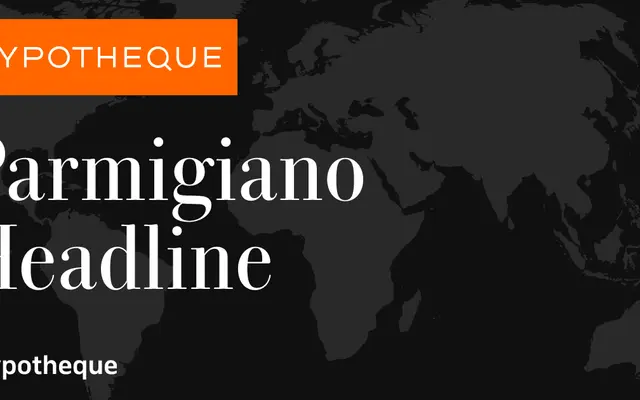
Parmigiano Headline
A didone serif system from Typotheque with four optical-size cuts, the Headline variant tuned for large-scale display settings with sharp stroke contrast.
Part of the Parmigiano system, this Headline cut is designed for large sizes where high contrast between thick and thin strokes reads at its most precise. The family runs six weights from Thin to Black, each with a matching italic, across four optical size variants: Headline, Text, Caption and Piccolo. A variable version of the Text cut is also available, and the system's name nods to Bodoni's connection to Parma.
Parmigiano is a high-contrast serif system with a name evoking Bodoni's Parma origins; the Headline cut is optimised for large display sizes with sharp contrast typical of the didone tradition.